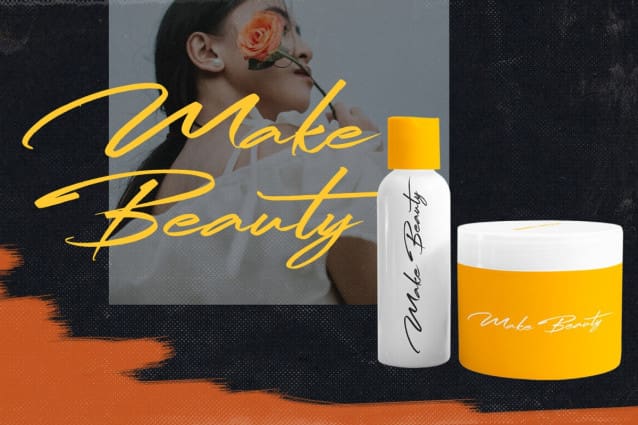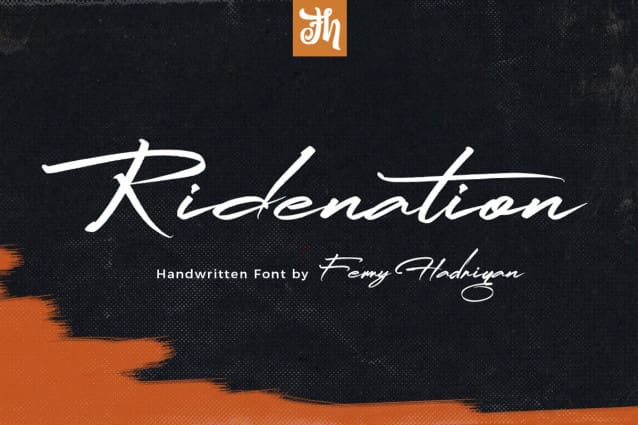
Ridenation Script Font
Ridenation Script Font is script font with handlettering brush style, with opentype feature include of the font. Suitable for design, element design, wedding, event, t-shirt, logo, badges, sticker, and awesome work, etc…